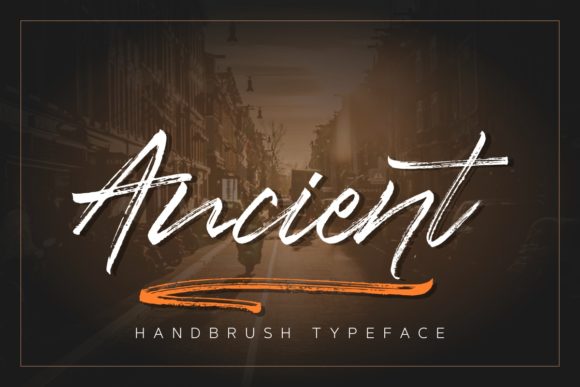
The Ancient is a font that is made using hand scratches and processed to produce amazing vectors, suitable for promotion of products, shirts, mugs, business cards and more.